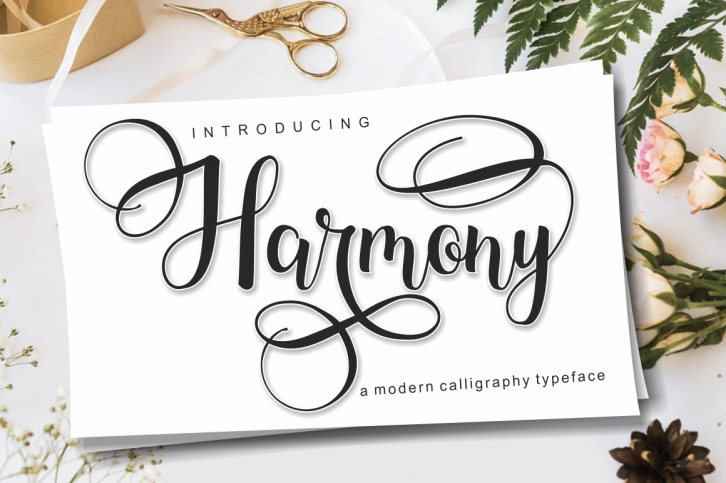
Harmony Script is a beautiful font that was designed by JR Letter. It's a great choice for designers and creatives who need such a font. It was released on December 6, 2019 and the file size is 9.66 MB. Harmony Script may give a more youthful, expressive and casual look to your project. It is a very beautiful, refined, elegant, and high-quality font.